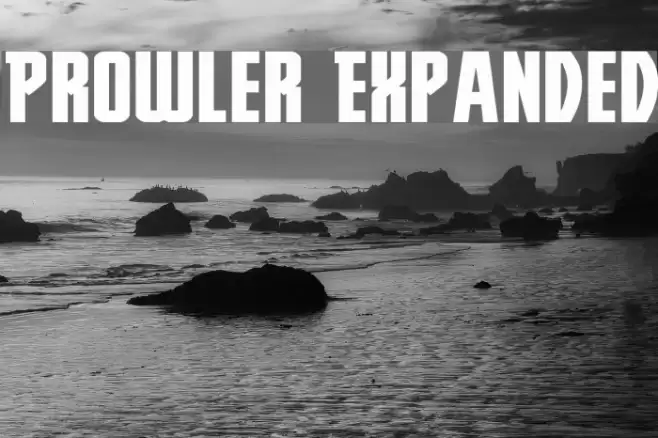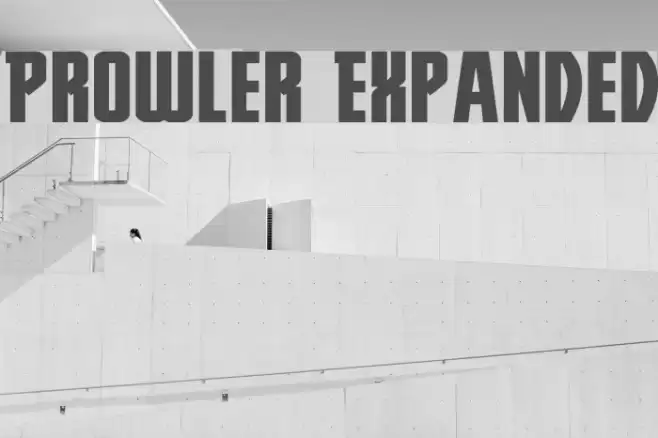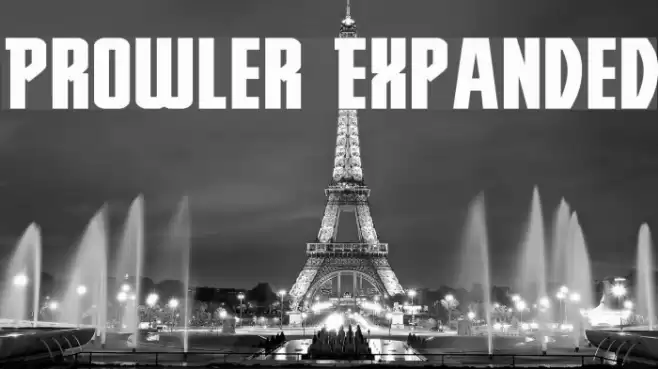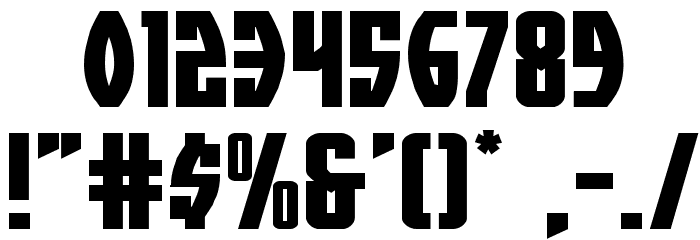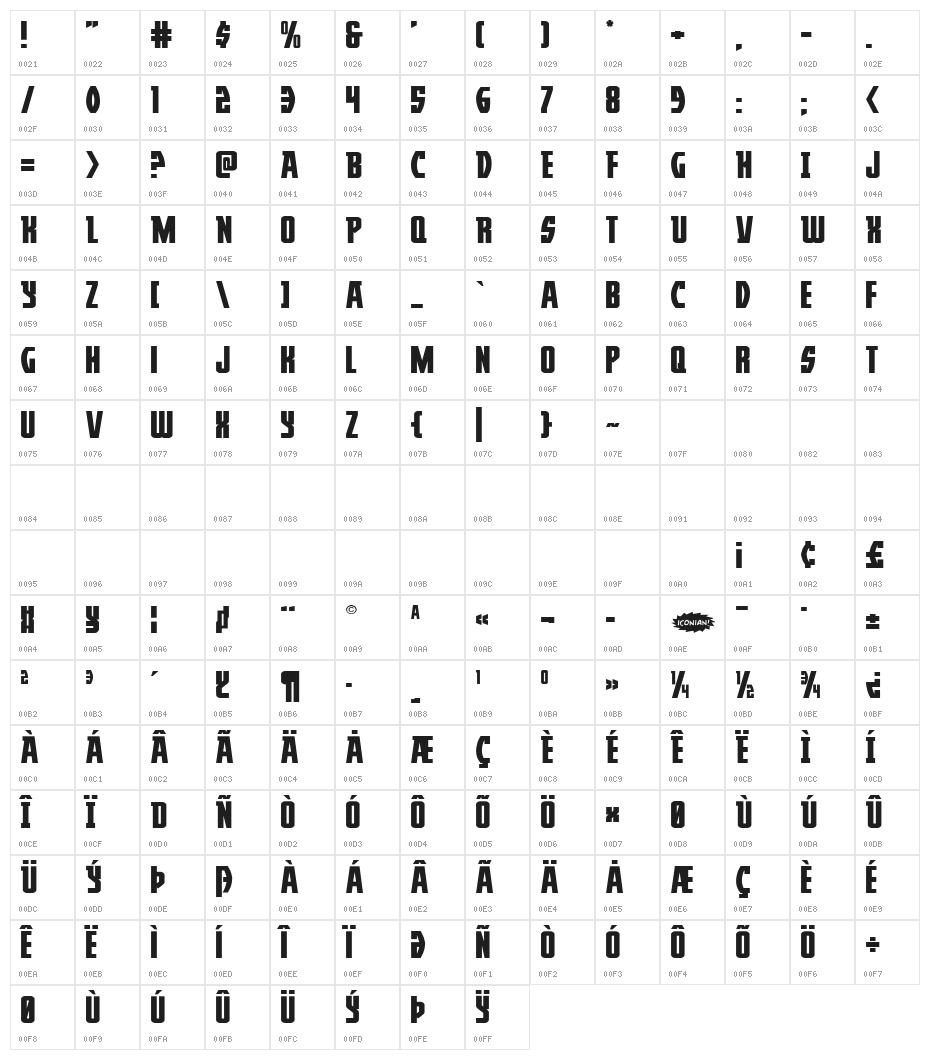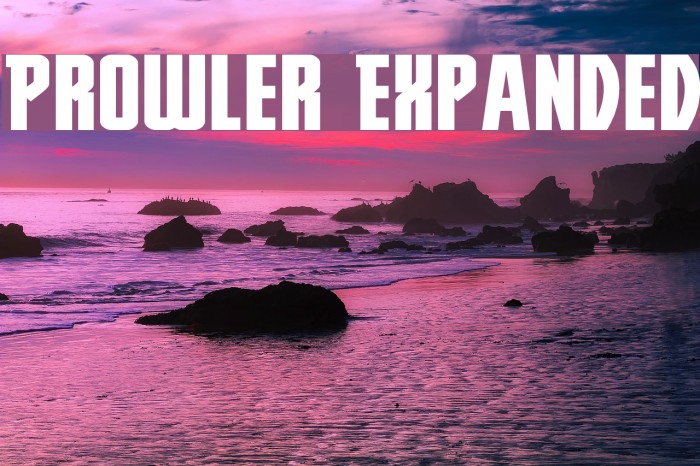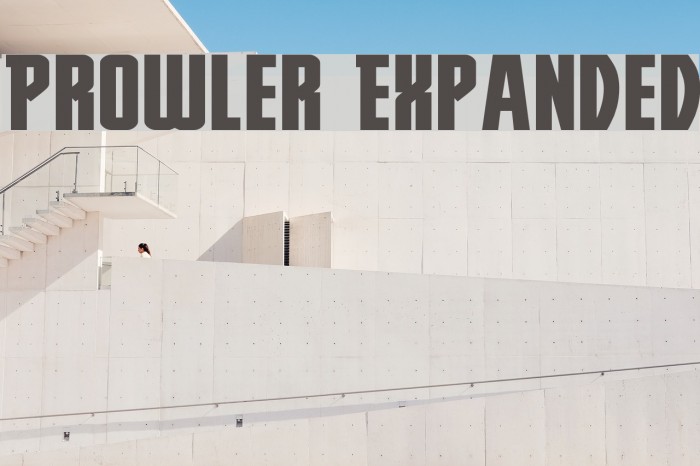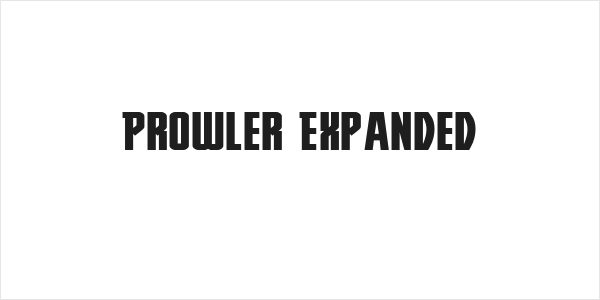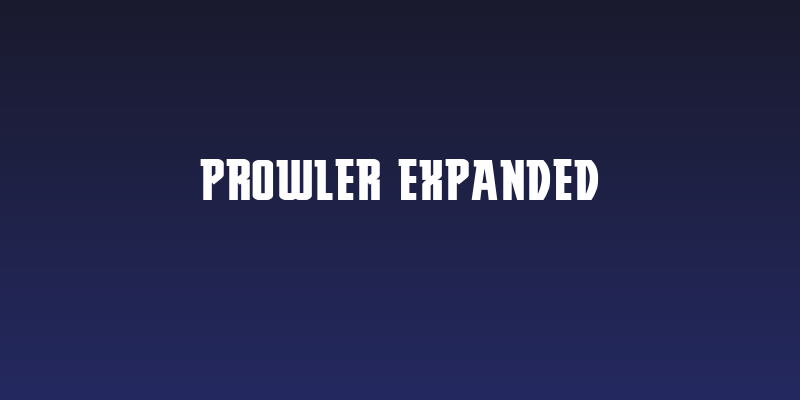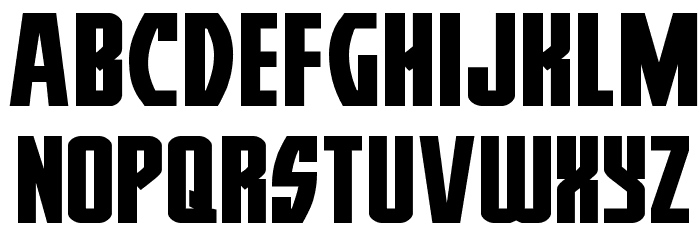
Prowler Expanded Font
Prowler Expanded Description
This font features a bold and striking design with a distinctly expanded width, making it ideal for attention-grabbing headlines and impactful displays. The characters are crafted with sharp, angular edges and a uniform stroke weight, contributing to a strong and assertive appearance. The uppercase letters dominate the design, while the numerals and special characters maintain the same bold style, ensuring consistency across all text elements. The font's geometric structure and expanded form give it a modern and dynamic feel, suitable for projects that require a commanding visual presence.
A bold, expanded font with sharp, angular edges for impactful displays from Uncategorized fonts.
- Proposed Projects: Ideal for posters, branding, advertising, and any project needing a bold visual impact.